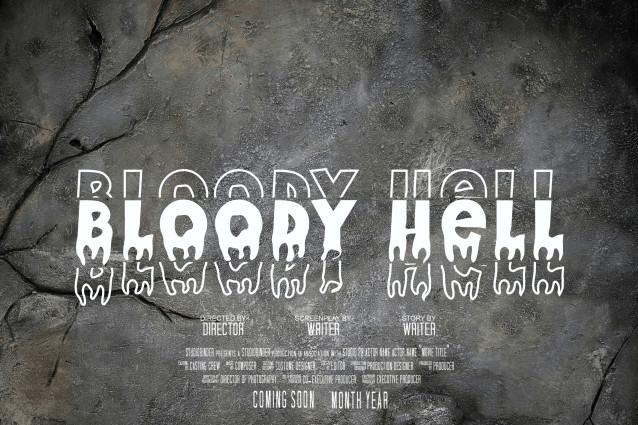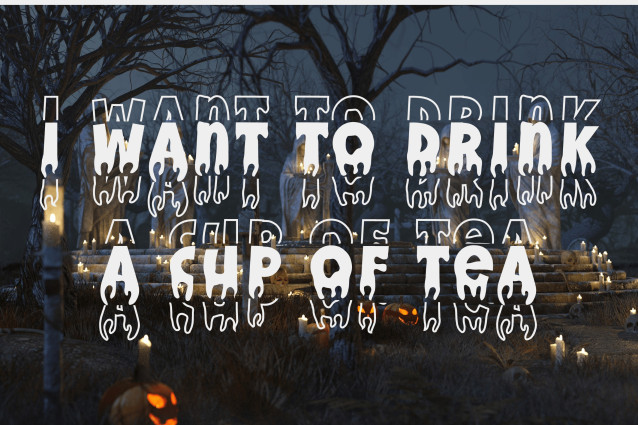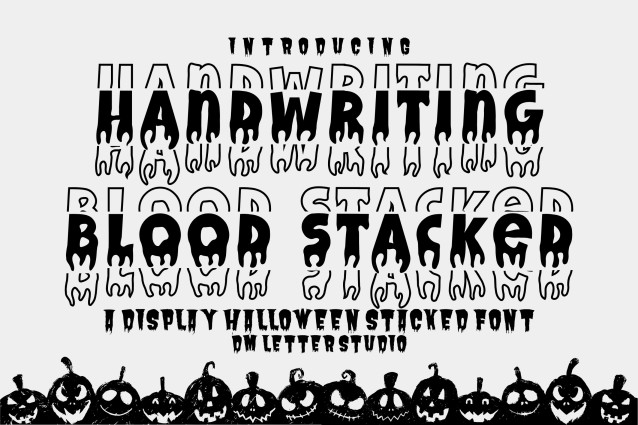
Handwriting Blood Stacked Font
Handwriting Blood Stacked is a vertically arranged horror font that blends chilling handwritten strokes with dramatic dripping effects. Designed to create an immediate sense of unease, this font is ideal for horror movie titles, Halloween party flyers, spooky apparel, and eerie branding. Its stacked layout gives it a bold, eye-catching structure while maintaining a creepy, blood-soaked aesthetic.